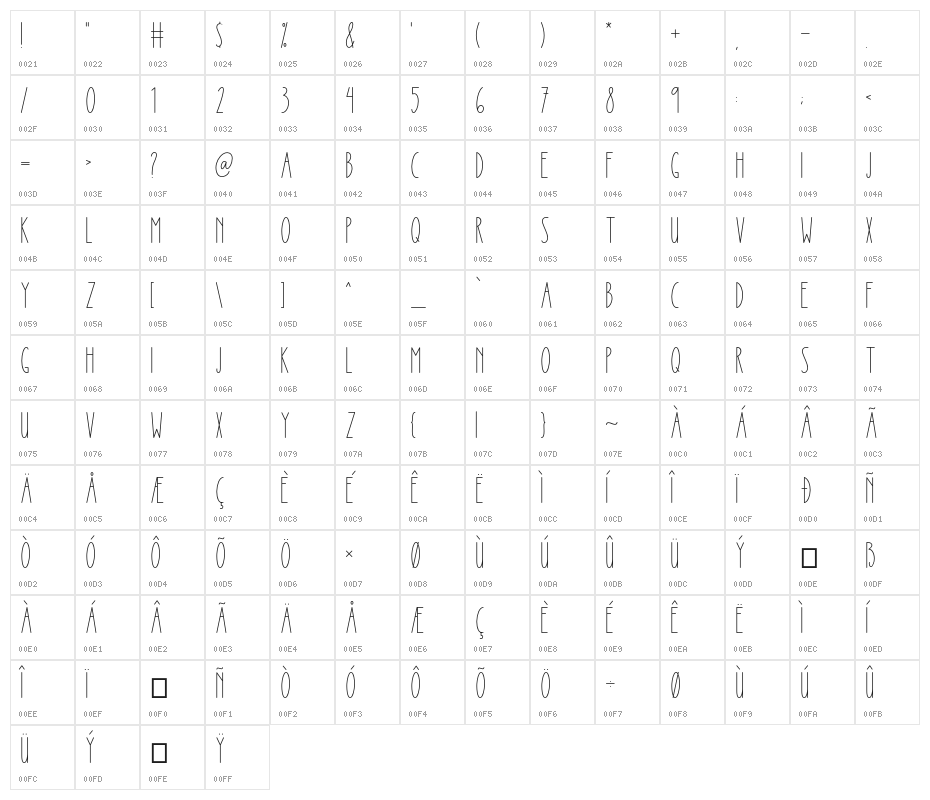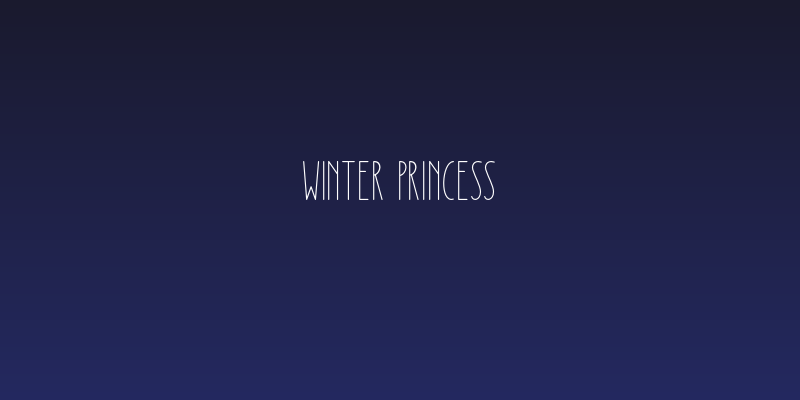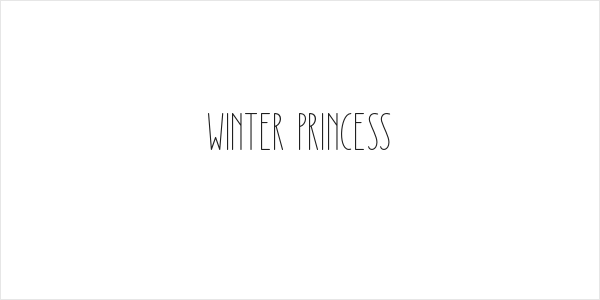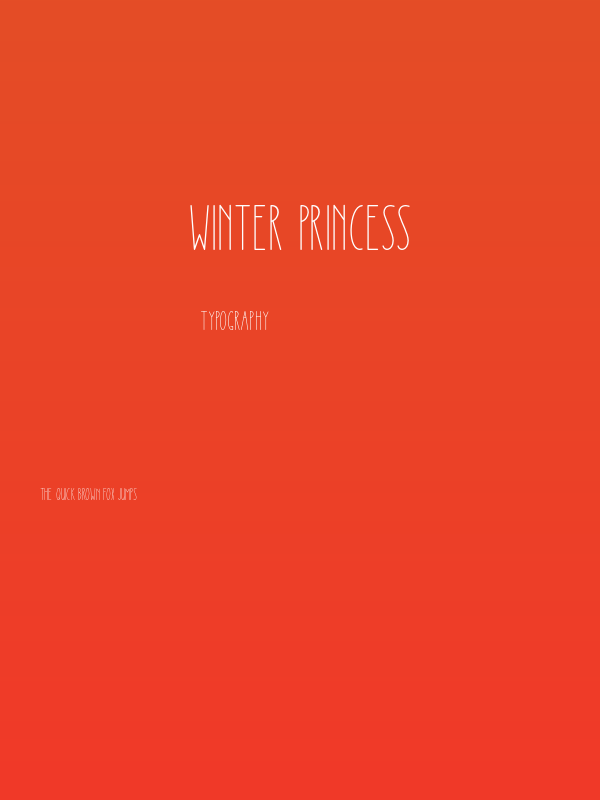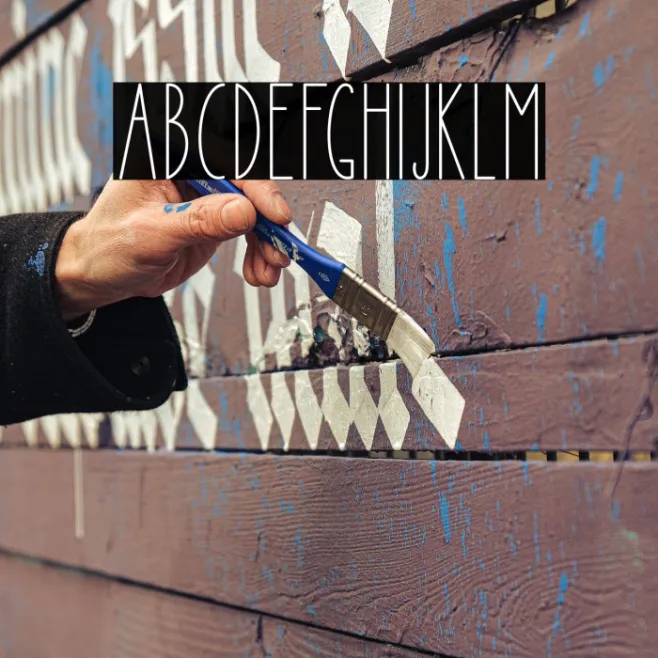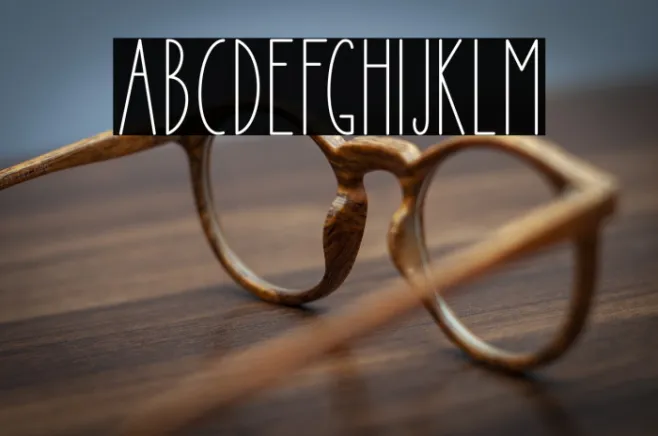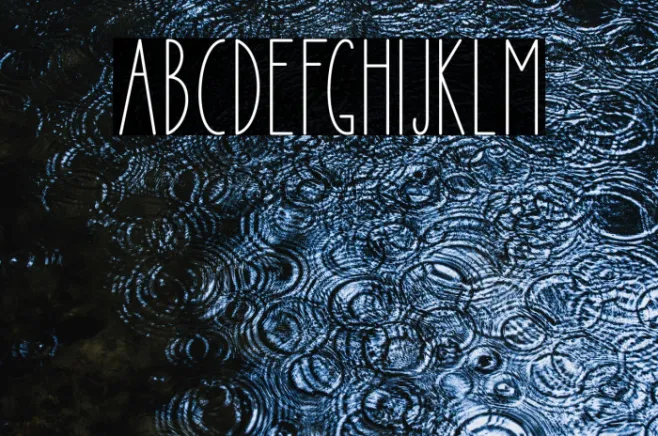
Winter Princess Font
Winter Princess Description
This font features a tall and narrow design with a clean and elegant appearance. The characters are elongated, giving it a sophisticated and modern look. The strokes are consistent in width, creating a uniform and harmonious feel. The uppercase and lowercase letters maintain a cohesive style, with slight variations in curvature and line endings that add a touch of uniqueness. The numerals are clear and easy to read, while the special characters blend seamlessly with the overall aesthetic. This font's simplicity and grace make it versatile for various design applications.
| Proposed Projects | Ideal for wedding invitations, fashion branding, editorial design, and elegant packaging. |